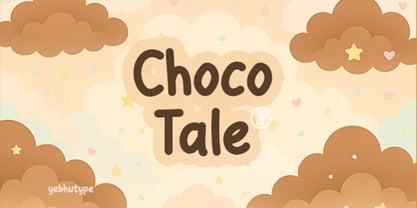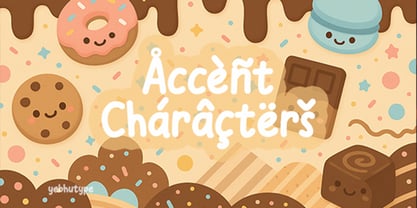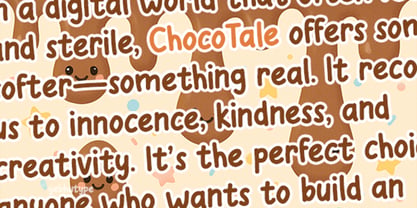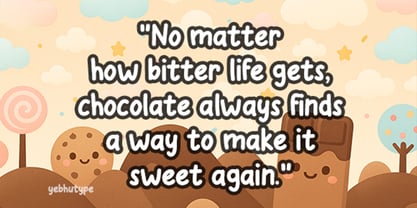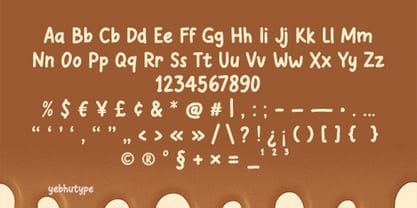
Choco Tale
by Yebhu
The Choco Tale Font Family was designed by Untung Prasetyo and published by Yebhu. Choco Tale contains 1 styles.
ChocoTale Font: A Deliciously Playful Typeface That Melts Hearts with Every Curve
Introducing ChocoTale Font, a whimsical and heartwarming typeface that wraps every letter in a blanket of charm and sweetness. Inspired by the cozy comforts of chocolatey treats and childhood fairytales, ChocoTale is more than just a font—it’s a story waiting to be told. With its soft, round letterforms and handcrafted essence, ChocoTale delivers a delightful blend of fun, friendliness, and flavor to all your design adventures.
Whether you're creating for kids, building a lovable brand, or simply adding a dash of joy to your next project, ChocoTale sprinkles happiness in every word—just like the perfect bite of your favorite dessert.
The Essence of ChocoTale Font
ChocoTale was born from the magic of bedtime stories, cozy cafés, and the innocent giggles of a child’s imagination. It carries the warmth of a mug of hot cocoa, the sparkle of fairy dust, and the nostalgia of sweet moments shared with loved ones. Every character is a little hug—inviting, approachable, and brimming with positivity.
Just like a tale spun with sugar and joy, ChocoTale makes every message feel like a moment of wonder.
Key Features
Smooth & Delightful Curves
ChocoTale features soft, rounded strokes that make each letter feel welcoming and gentle. It’s the typographic version of marshmallows in hot chocolate—simple, sweet, and oh-so-lovable.
Cheerful Personality
With its bouncy letterforms and playful rhythm, ChocoTale brings a lively energy to your text. It smiles through every curve, perfect for adding positivity and warmth to your designs.
Perfect for a Range of Projects
From children’s media to dessert packaging, ChocoTale fits right in. It’s versatile enough to be used for storytelling, branding, social media, invitations, and anything that could use a little more magic.
Handcrafted Character
Each glyph is carefully drawn with organic imperfections that make it feel truly handmade. These subtle quirks add depth and soul, creating a friendly, human connection through typography.
Timeless Whimsy
While ChocoTale has a modern polish, it carries the spirit of storybooks, sketchpads, and playful scribbles. It bridges the gap between today’s design trends and the timeless charm of imagination.
Mood & Personality
ChocoTale is the font equivalent of your favorite storytime snack. Think gooey brownies, soft laughter, warm blankets, and pages filled with talking animals and magical lands. It’s tender, joyful, and a little nostalgic—without losing its fresh, upbeat vibe.
It’s not just a typeface—it’s the voice of childhood dreams and sweet moments.
Ideal Use Cases
Children’s Books & Storytelling
Bring your stories to life with ChocoTale’s expressive and lovable forms. From story titles to dialogue lines, it creates a world kids will want to dive into again and again.
Dessert & Food Branding
Add an irresistible sweetness to packaging, menus, and branding for bakeries, cafés, or chocolate shops. With ChocoTale, your designs will look as delicious as they taste.
Greeting Cards & Event Designs
Birthdays, baby showers, thank-you notes—ChocoTale makes every occasion feel extra special with its handwritten warmth and whimsical flair.
Social Media & Digital Content
Elevate your posts, quotes, and illustrations with a font that stops the scroll. ChocoTale draws the eye, keeps attention, and leaves a lasting smile.
Creative Crafts & DIY Projects
Whether you're journaling, scrapbooking, or designing stickers, ChocoTale adds a touch of joy that makes even small moments memorable.
Why Choose ChocoTale Font?
In a digital world that often feels sharp and sterile, ChocoTale offers something softer—something real. It reconnects us to innocence, kindness, and creativity. It’s the perfect choice for anyone who wants to build an emotional bond with their audience through sweet, expressive design.
With ChocoTale, you're not just typing—you’re telling a story.
Let Your Designs Melt Hearts
With ChocoTale Font, every letter is dipped in joy, every word wrapped in charm, and every design touched by wonder. Let its comforting curves and cheerful spirit breathe magic into your work. Whether you're designing a product label, a children's tale, or a heartfelt note, ChocoTale helps your message come to life—one delightful letter at a time.
P.S.: Happiness is best when shared—and with ChocoTale, you’re sharing a little piece of that magic with everyone who reads your work.
Designers: Untung Prasetyo
Publisher: Yebhu
Choco Tale